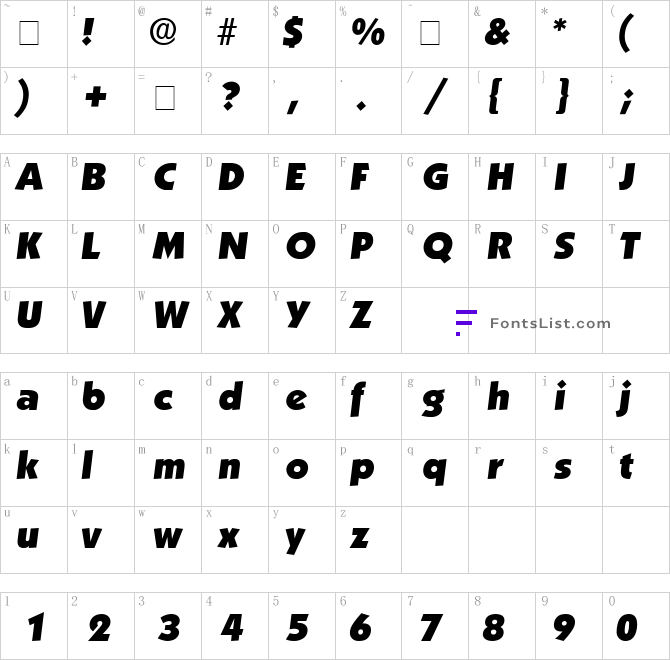
- Font Name:Anakeim Display SSi
Anakeim-Display-SSi-Italic.ttf is a very beautiful artistic font, Anakeim-Display-SSi-Italic.ttf is widely used in the design and printing of various books and pictures,Anakeim-Display-SSi-Italic.ttf has a strong visual impact,Anakeim-Display-SSi-Italic.ttf is a commonly used font in newspapers, magazines and books, and is used in posters, e-commerce Poster design, store design, logo design, font design and other fields.Anakeim-Display-SSi-Italic.